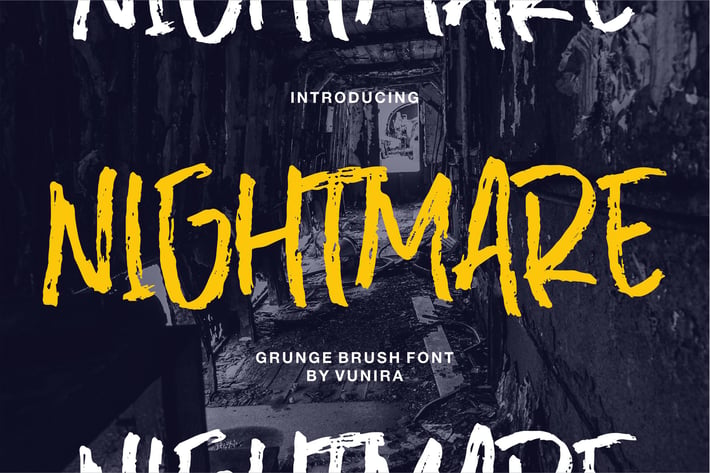
Nightmare | Grunge Brush Font
Nightmare | Grunge Brush Font with a calligraphy style, So beautiful on invitation like greeting cards, branding materials, business cards, quotes, posters, and more!